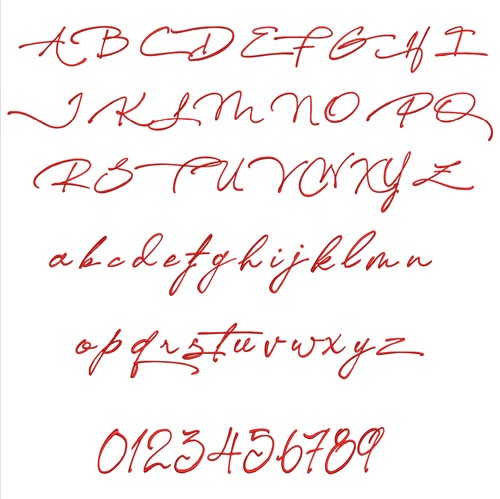
Green Brier Font Embroidery Font - Elegant Handwritten Style - Home Format - PES, DST & 11 formats by Unicorn Creatives and other embroidery fonts available at EmbroideryDesigns.com.
Unicorn Creatives is happy to present Green Brier Font Embroidery Font - Elegant Handwritten Style - Home Format - PES, DST & 11 formats machine embroidery font which has Flowing script machine embroidery font with a handwritten look, perfect for sophisticated designs on pillows or table linens. Available in PES, DST, and 11 other formats. included. If you would like to view more embroidery fonts and alphabets please search our embroidery fonts page.